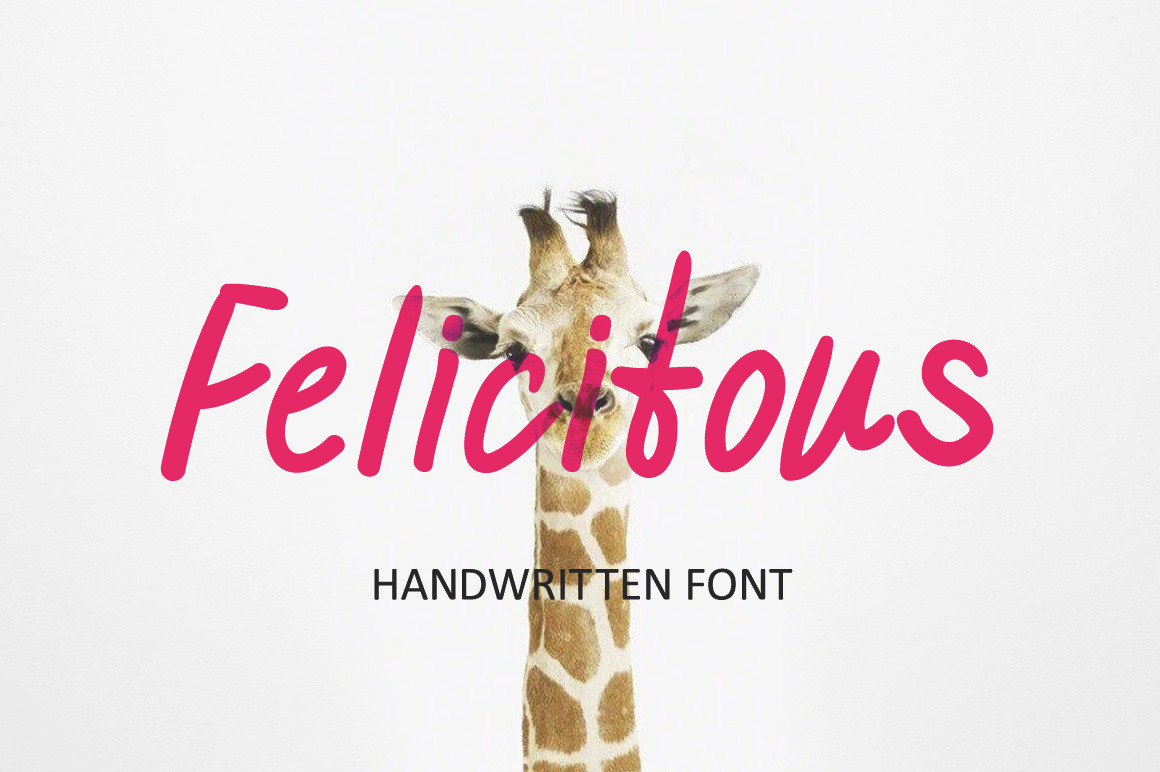
Felicitous handwritten font
Hello everyone! I want to introduce you and show my new font FELICITOUS.
This is a great decoration element for your belongings, interior, pillows, shirts, posters, prints, weddings, apparel, packaging, invites, etc. Also you can place these phrases to your photos.